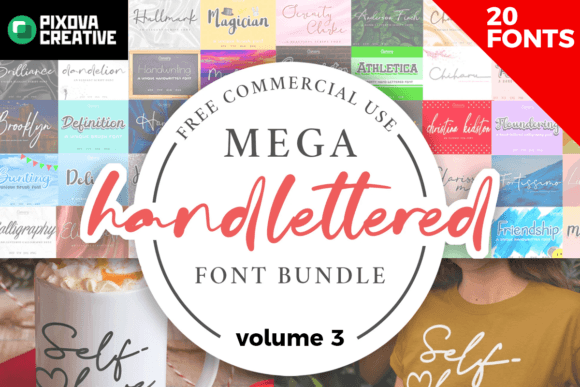
Mega Handlettered Vol. 3 Font
About the Mega Handlettered Vol. 3 Font
Mega Handlettered Vol. 3 is ideally suited for headlines, logos, short impactful quotes, and packaging design where its elegant, handcrafted style makes a strong visual statement. It excels in projects requiring a touch of vintage charm or modern sophistication. Avoid using it for body text or lengthy paragraphs; its decorative nature compromises readability at smaller sizes.
This font family’s core personality is elegant yet approachable. It projects a sense of refined handcraftsmanship without feeling overly stuffy.
Pair it with a clean sans-serif like Montserrat for a contemporary feel, or a classic serif such as Garamond for a more traditional aesthetic. For a playful contrast, consider pairing with a slightly quirky script font.